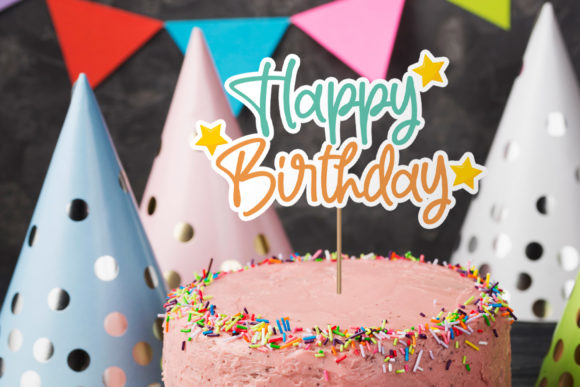
The Crafter Font
db-ku.com - Script & Handwritten -- The Crafter is a sweet and friendly handwritten font. Its natural and unique style makes it incredibly fitting to a large pool of designs. The only limit is your imagination!